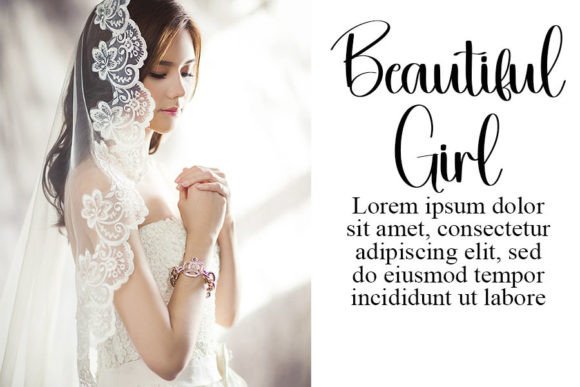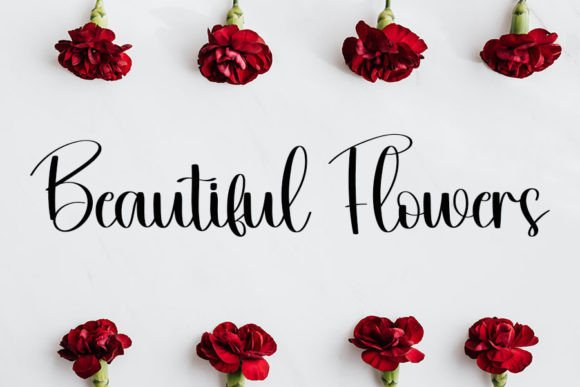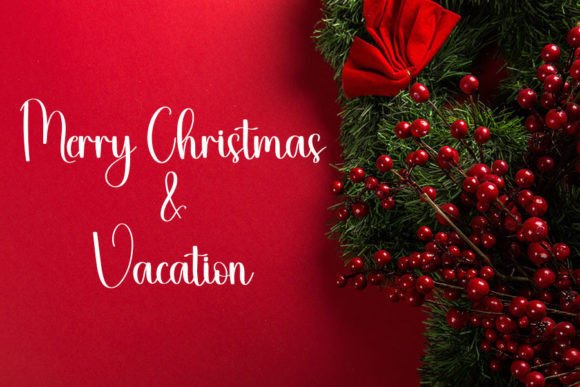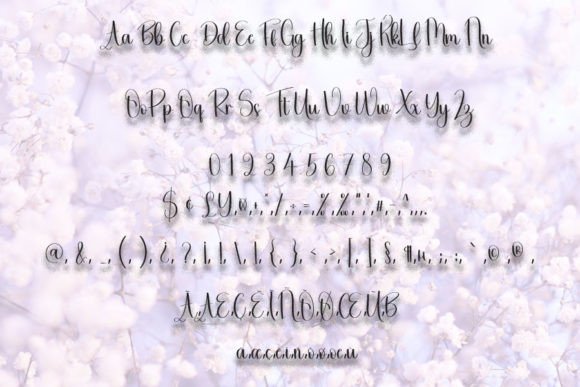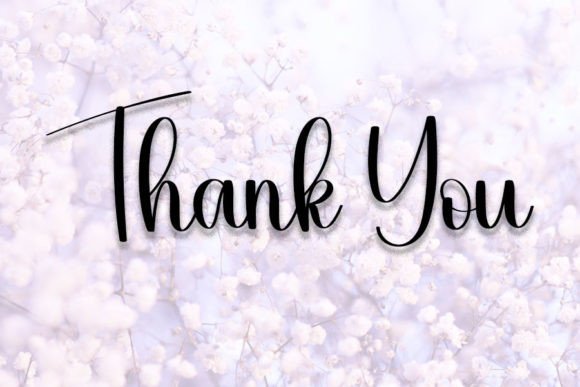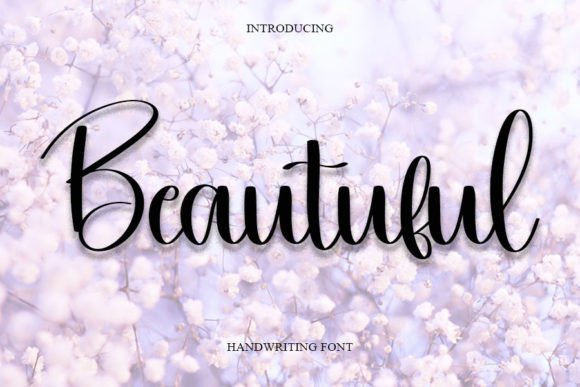
Discover the Charm of Beautiful Font: Your New Go-To for Creative Projects
Are you on the hunt for a font that adds a personal touch to your crafts, digital designs, presentations, or greeting cards? Look no further than Beautiful Font, a delightful and friendly handwritten font that’s sure to capture your heart. In this article, we’ll dive into the world of Beautiful Font, exploring its features, uses, and benefits for designers and crafters alike.
Handwritten fonts have a unique ability to add warmth and personality to any project. They evoke a sense of nostalgia and human touch, making them perfect for a wide range of applications, from digital designs to handmade crafts. Beautiful Font is no exception, boasting a playful and approachable feel that’s sure to make your projects stand out.
What Makes Beautiful Font Special?
So, what sets Beautiful Font apart from other fonts? Here are just a few reasons why it’s sure to become your new favorite:
- Versatility: Beautiful Font is incredibly versatile, making it suitable for a wide range of projects, from digital designs to handmade crafts.
- Readability: Despite its handwritten nature, Beautiful Font is remarkably easy to read, making it perfect for use in presentations, greeting cards, and other applications where legibility is key.
- Friendliness: The font’s friendly and approachable feel makes it ideal for projects that require a personal touch, such as invitations, thank-you cards, and social media graphics.
Using Beautiful Font in Your Projects
Beautiful Font is an incredibly versatile font that can be used in a wide range of projects, including:
- Crafts: Add a personal touch to your handmade crafts, such as scrapbooking, card making, and journaling.
- Digital Design: Use Beautiful Font in your digital designs, such as social media graphics, blog posts, and presentations.
- Greeting Cards: Create beautiful and personalized greeting cards for special occasions, such as birthdays, weddings, and holidays.
- Presentations: Add a touch of personality to your presentations, making them more engaging and memorable.
Tips for Getting the Most Out of Beautiful Font
To make the most of Beautiful Font, here are a few tips to keep in mind:
- Experiment with colors: Beautiful Font looks great in a variety of colors, so don’t be afraid to experiment and find the perfect hue for your project.
- Mix and match: Combine Beautiful Font with other fonts and graphics to create a unique and eye-catching design.
- Pay attention to spacing: Make sure to adjust the spacing between letters and words to ensure that your text is easy to read and visually appealing.
| Font Name | Beautiful Font |
Beautiful Font is a delightful and versatile handwritten font that’s perfect for designers and crafters alike. Its friendly and approachable feel makes it ideal for a wide range of projects, from digital designs to handmade crafts. With its ease of use, readability, and charm, Beautiful Font is sure to become your new go-to font for all your creative endeavors.
Get Ready to Fall in Love with Beautiful Font